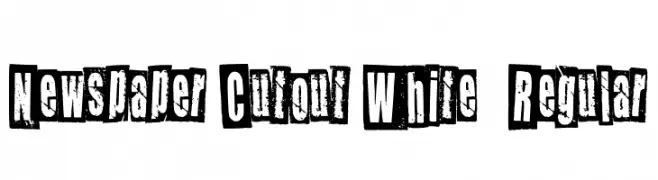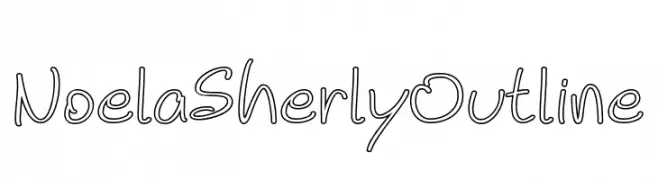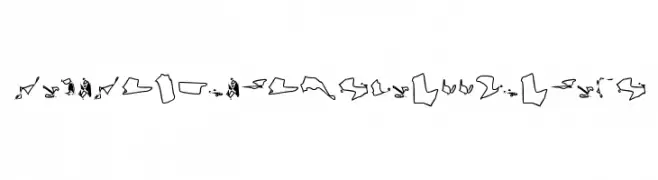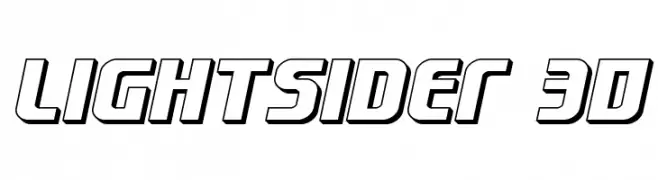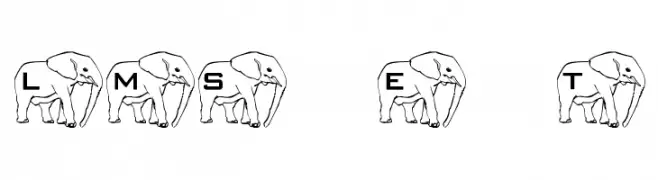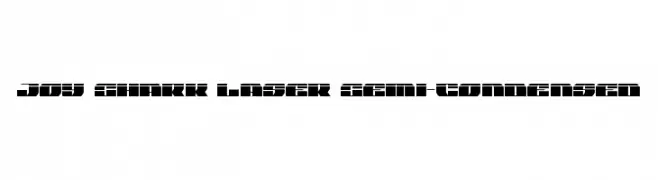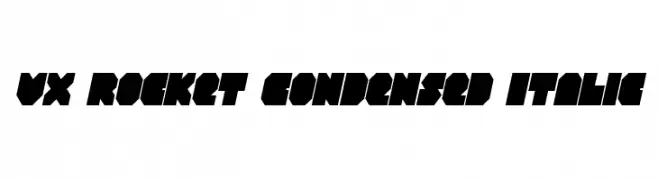
A bold, distressed font with a newspaper cutout style and vintage appeal.
An outline font with a playful, artistic style and consistent hollow design.
A bold, graffiti-inspired font with sharp angles and high contrast.
An abstract, outline font with a camouflage-like, artistic design.
A bold, pixelated font inspired by retro digital displays.
A bold, 3D outlined font with a modern and futuristic style.
A decorative font with characters integrated into elephant motifs.
A modern, semi-condensed sans-serif font with medium weight and excellent readability.
A bold, geometric, and condensed italic font with a futuristic style.